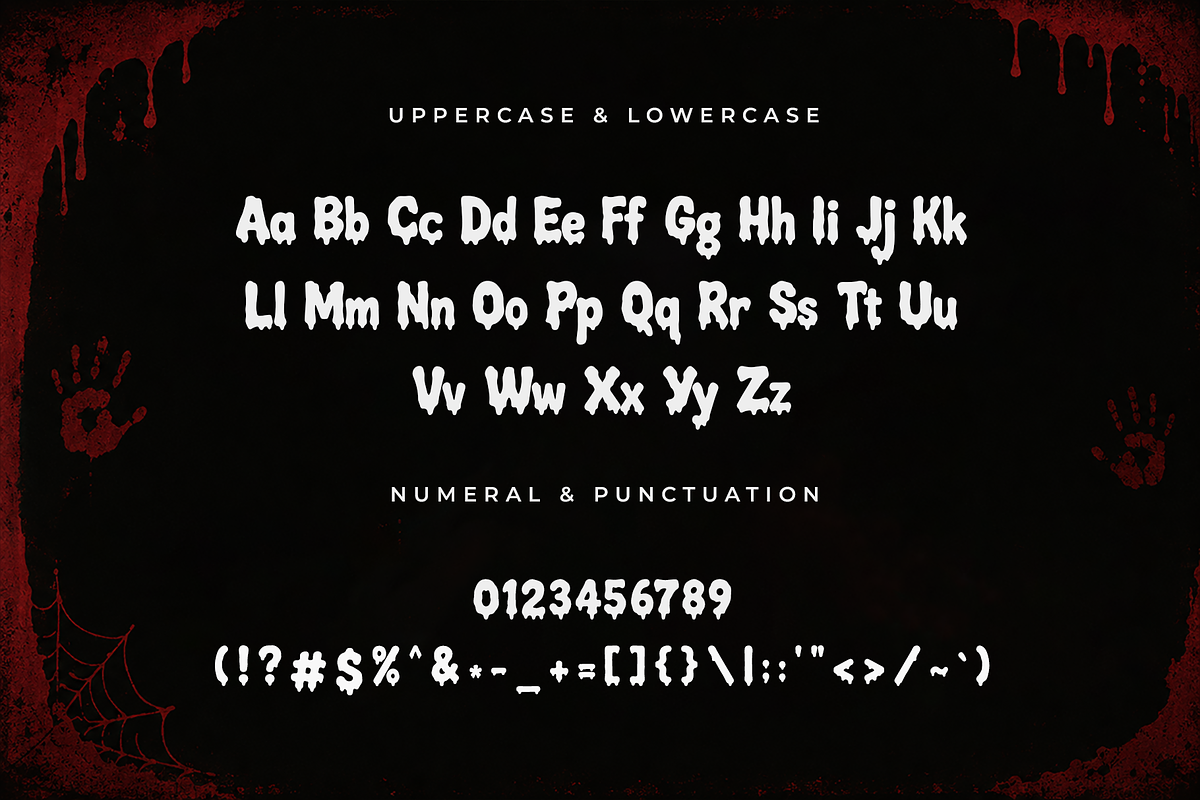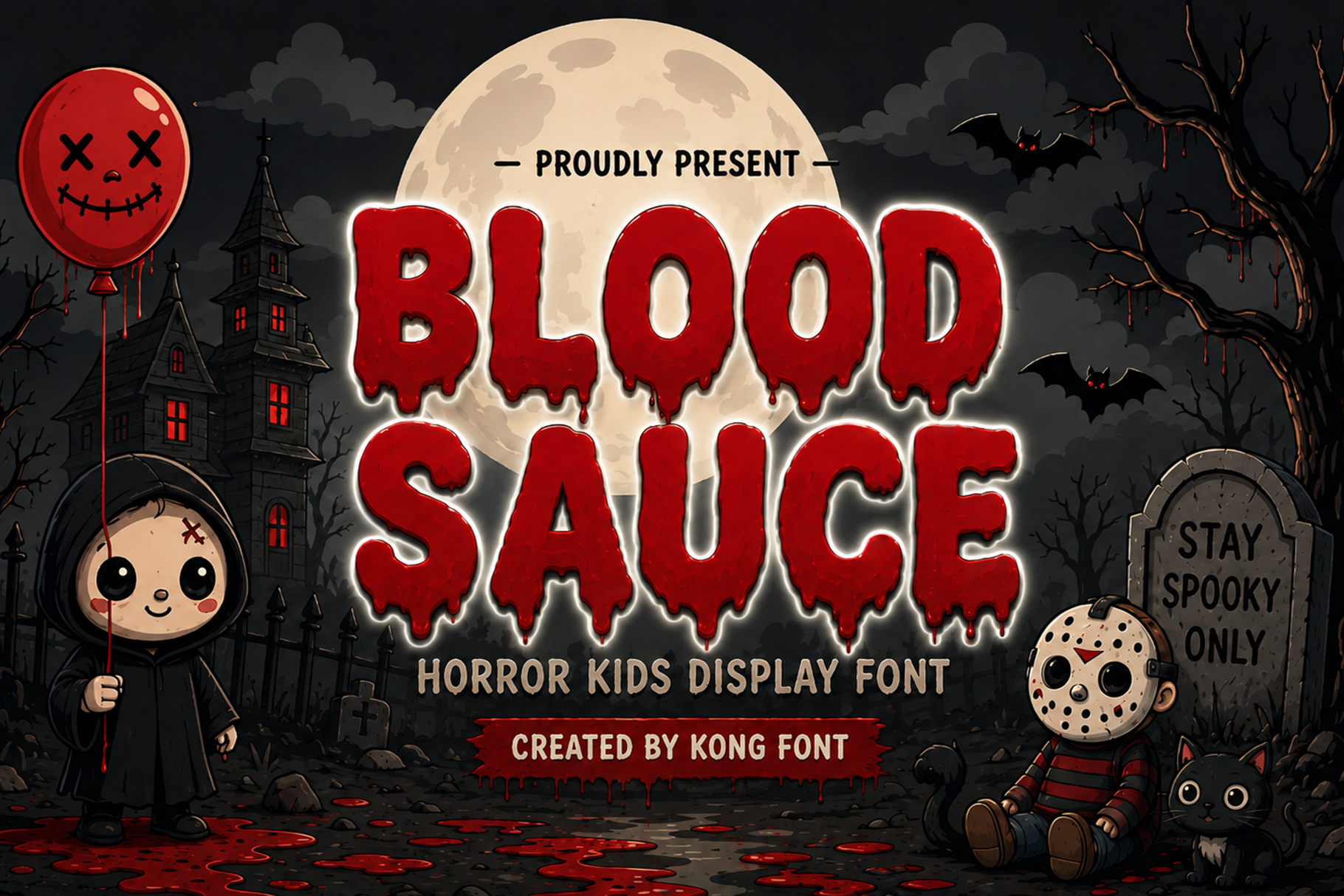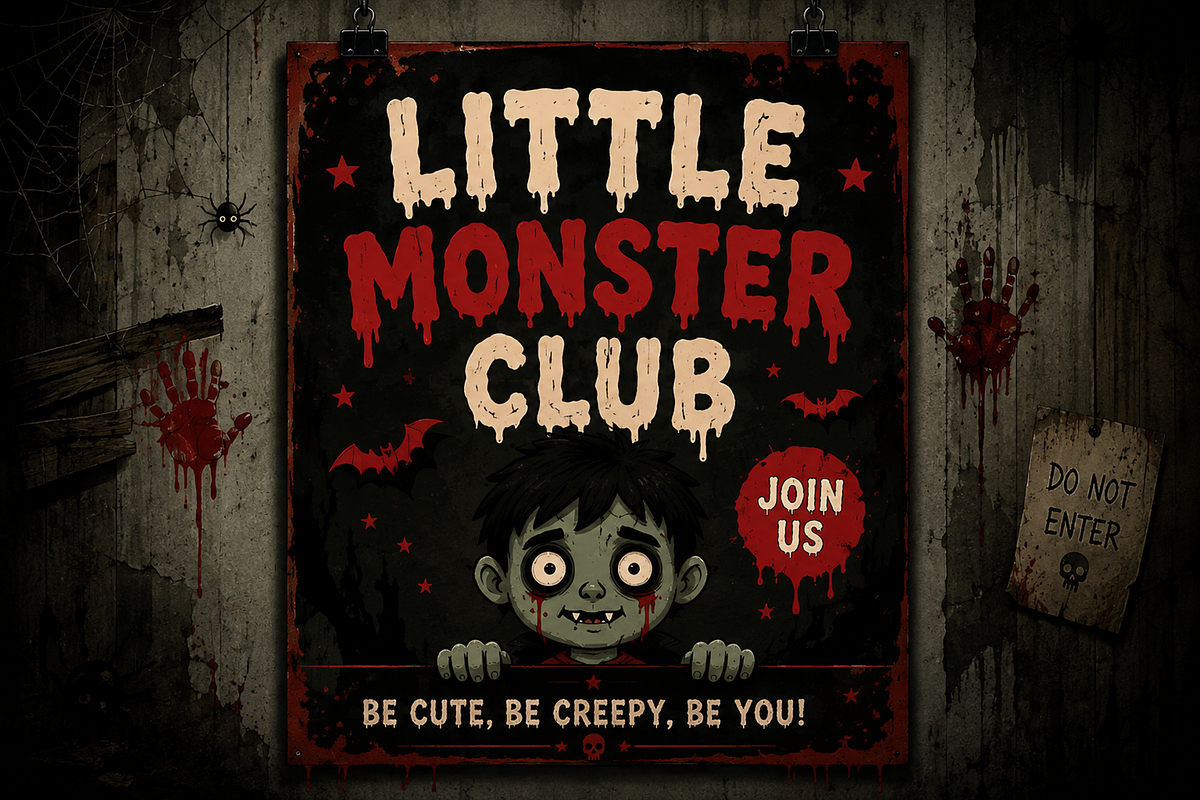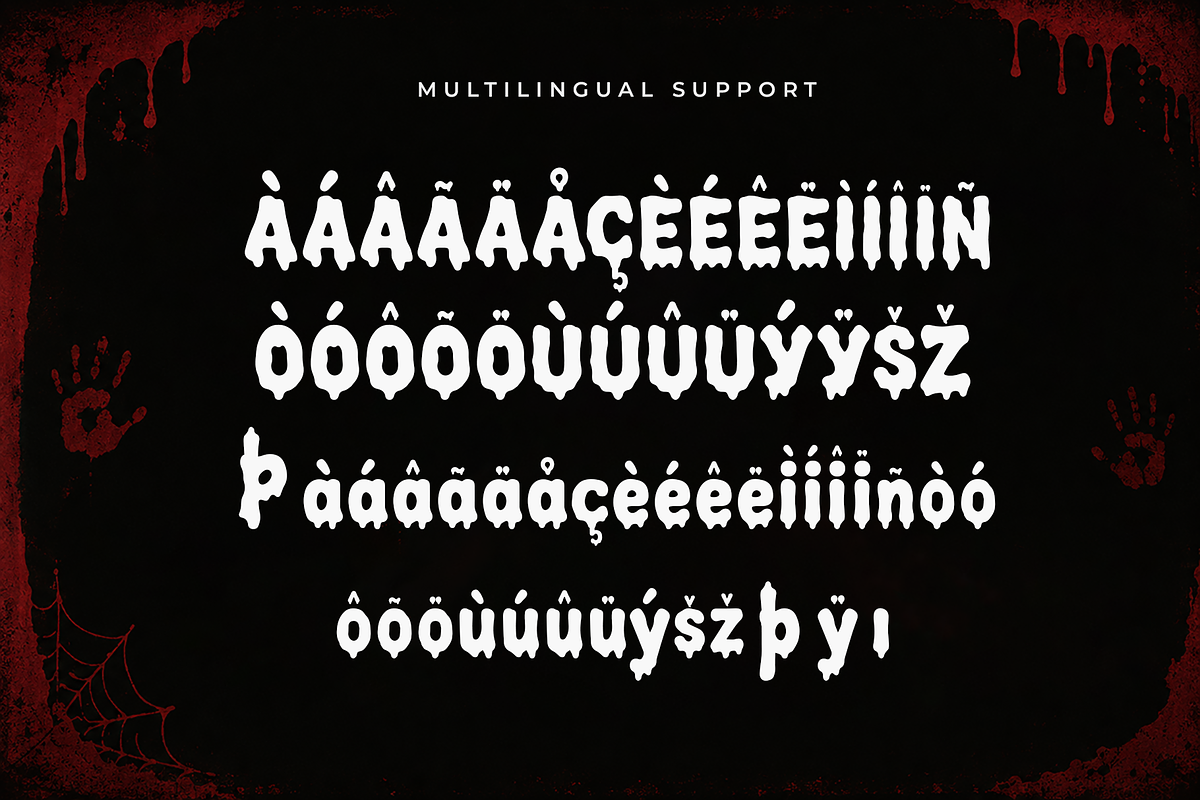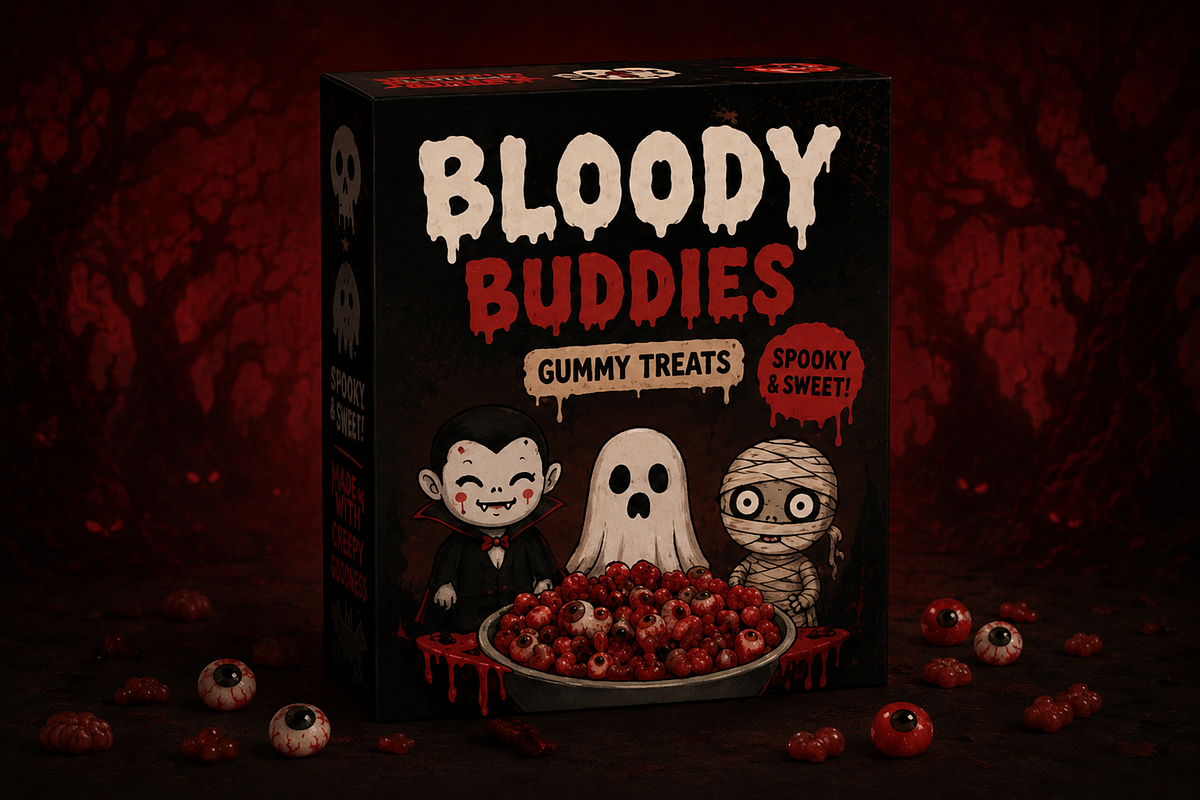
Blood Sauce - Horror Display Font
Blood Sauce - Horror Kids Dripping Display Font
Meet "Blood Sauce," a playful horror display font created with thick letterforms, dripping details, and a spooky cartoon personality. Blending creepy Halloween energy with a fun kid-friendly style, Blood Sauce is perfect for designs that need to feel scary, bold, and entertaining without becoming overly serious.
Inspired by haunted houses, monster stories, Halloween parties, spooky cartoons, and classic horror graphics, this typeface features chunky shapes and dramatic dripping forms that instantly grab attention. Its strong display construction makes it especially effective for headlines, titles, posters, logos, and large decorative typography.